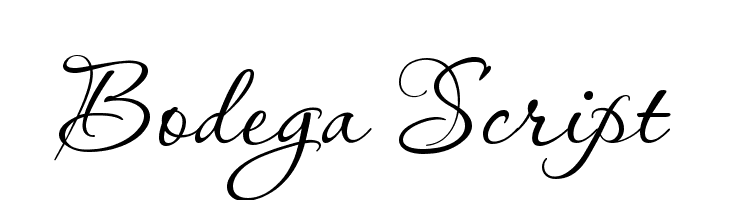
A bold, geometric font with sharp angles and a modern industrial feel.
A bold and robust font with strong, thick strokes and a slightly elegant curvature.
A playful, bold, and hand-drawn font with a whimsical style.
Cartoonish, character-based decorative font with playful illustrations.
A playful, handwritten font with dynamic strokes and a casual style.
A modern serif font with medium weight, offering clarity and versatility.
A bold, brush-style font with dynamic, hand-drawn strokes.
An artistic display font composed of modern art illustrations for each character.
Primitive, cave art-inspired decorative font with animal motifs in starburst frames.
A bold, italic font with a jagged, textured outline and dynamic style.
A bold, 3D italic font with a dotted outline and shadow effect.
An elegant serif font with decorative flourishes and classic elements.
A bold, geometric font with outlined characters, ideal for digital or tech-themed designs.
A bold, futuristic font with semi-condensed, geometric letterforms.
A playful, bold font with rounded, bubbly letterforms and a retro vibe.
A bold, 3D bubble font with an italic style and playful outline.
A bold, intricate Blackletter font with ornate details and historical flair.
A bold, angular font with a strong, modern aesthetic.
A casual, flowing handwritten font with elegant cursive letterforms.
A bold and dynamic script font with dramatic curves and angles.
A modern, italic sans-serif font with clean lines and a dynamic style.
An elegant and sophisticated font with high contrast and decorative elements.
A bold, condensed, and italic font with a futuristic, angular design.
A decorative font with swirling embellishments and bold, high-contrast strokes.
A dynamic and expressive cursive script font with medium contrast.
A bold, italic, futuristic font with outlined, geometric characters.